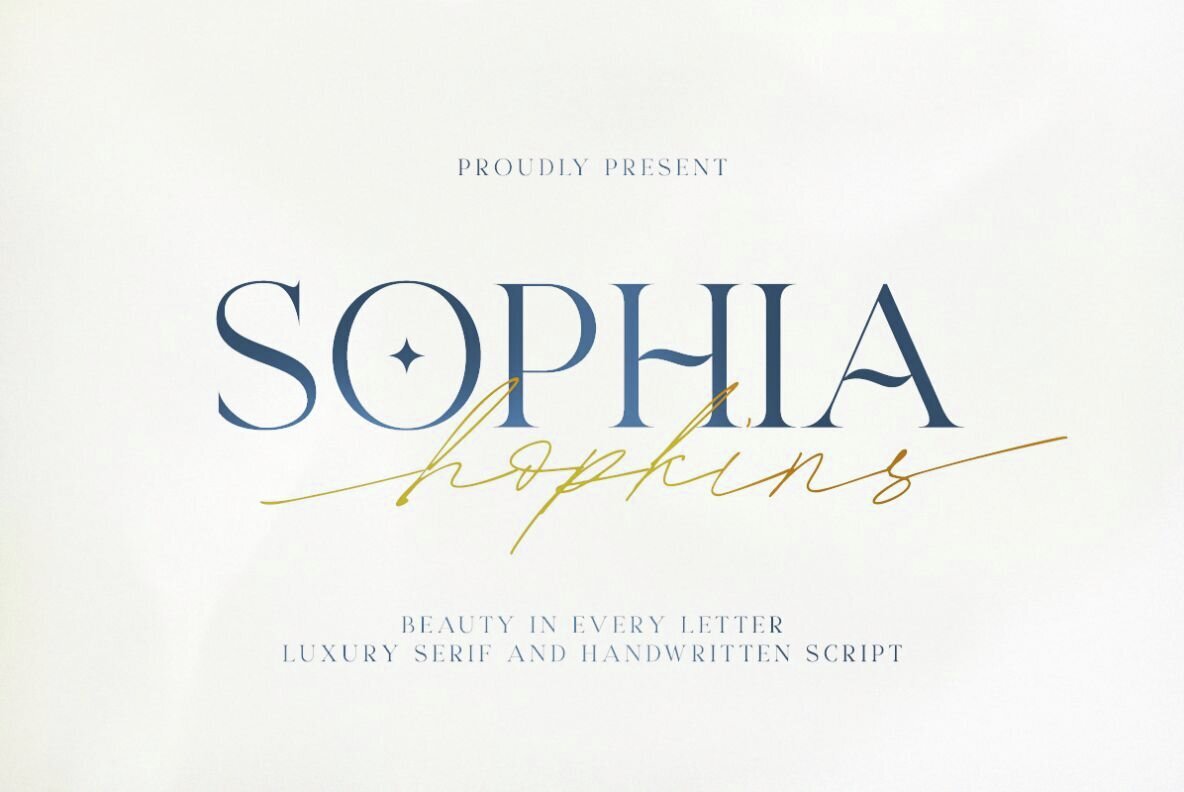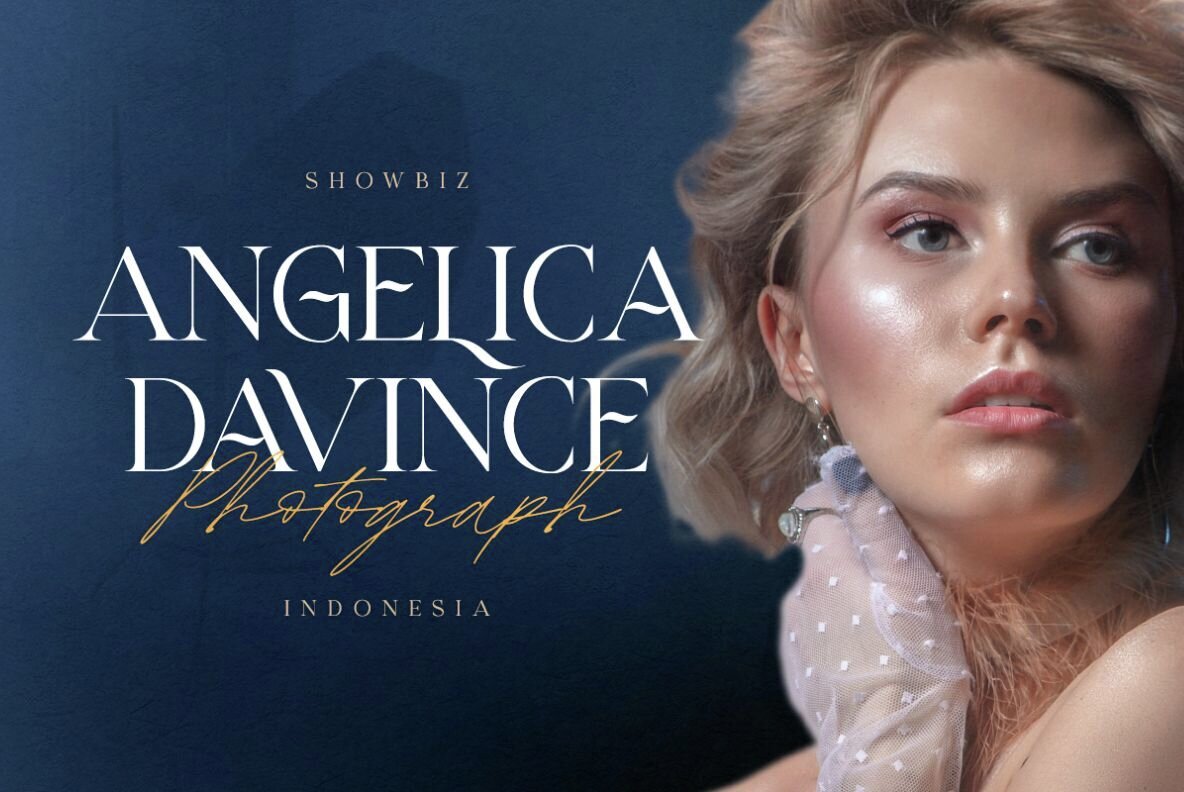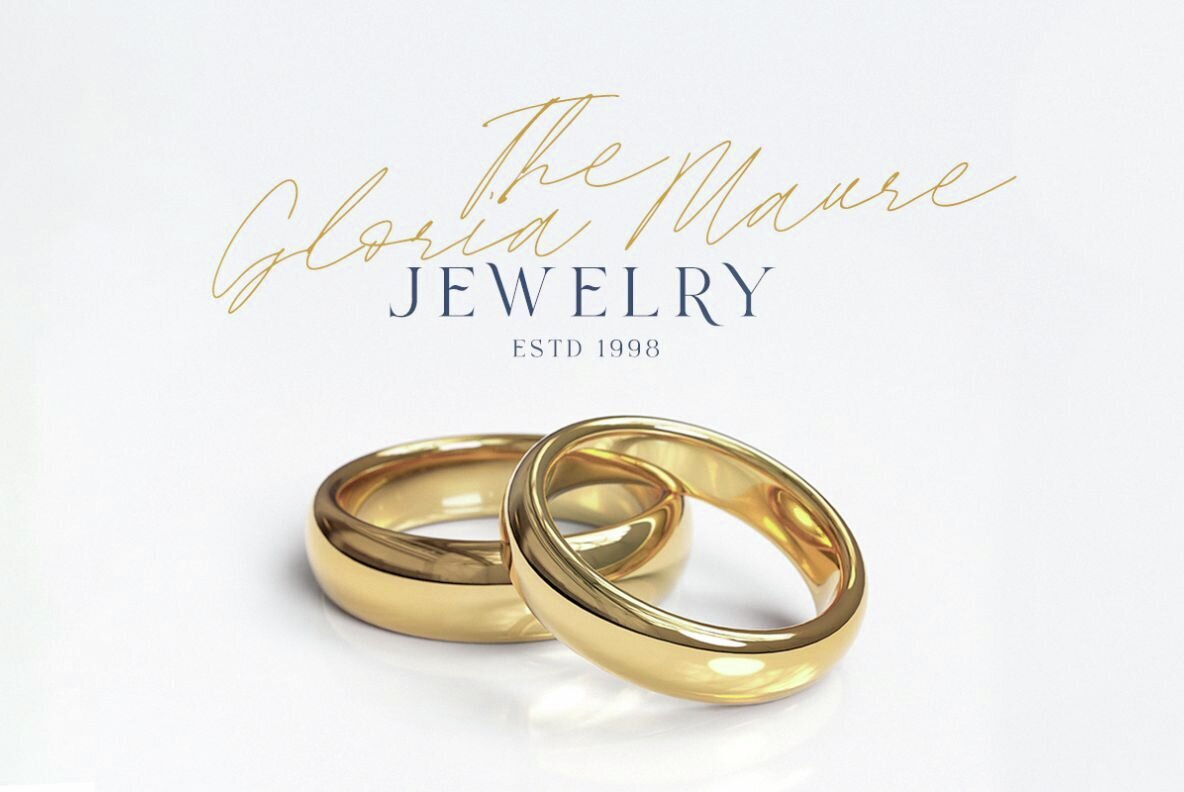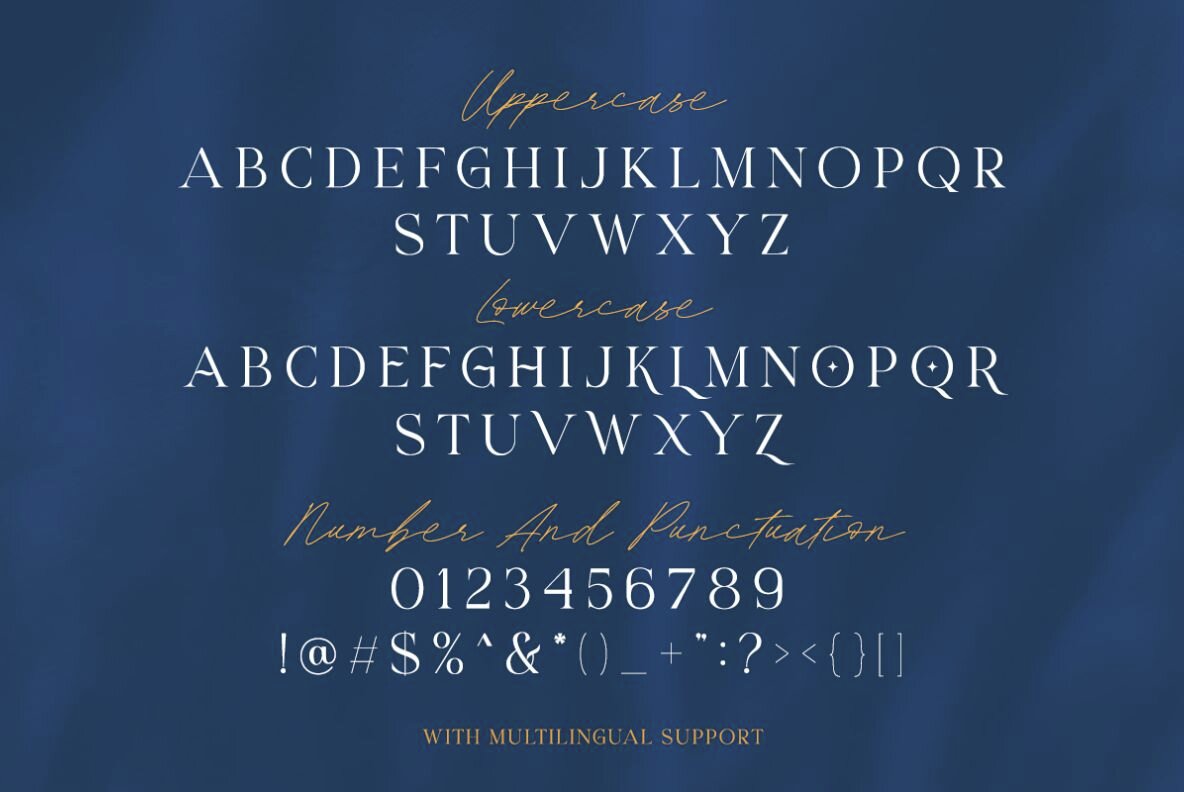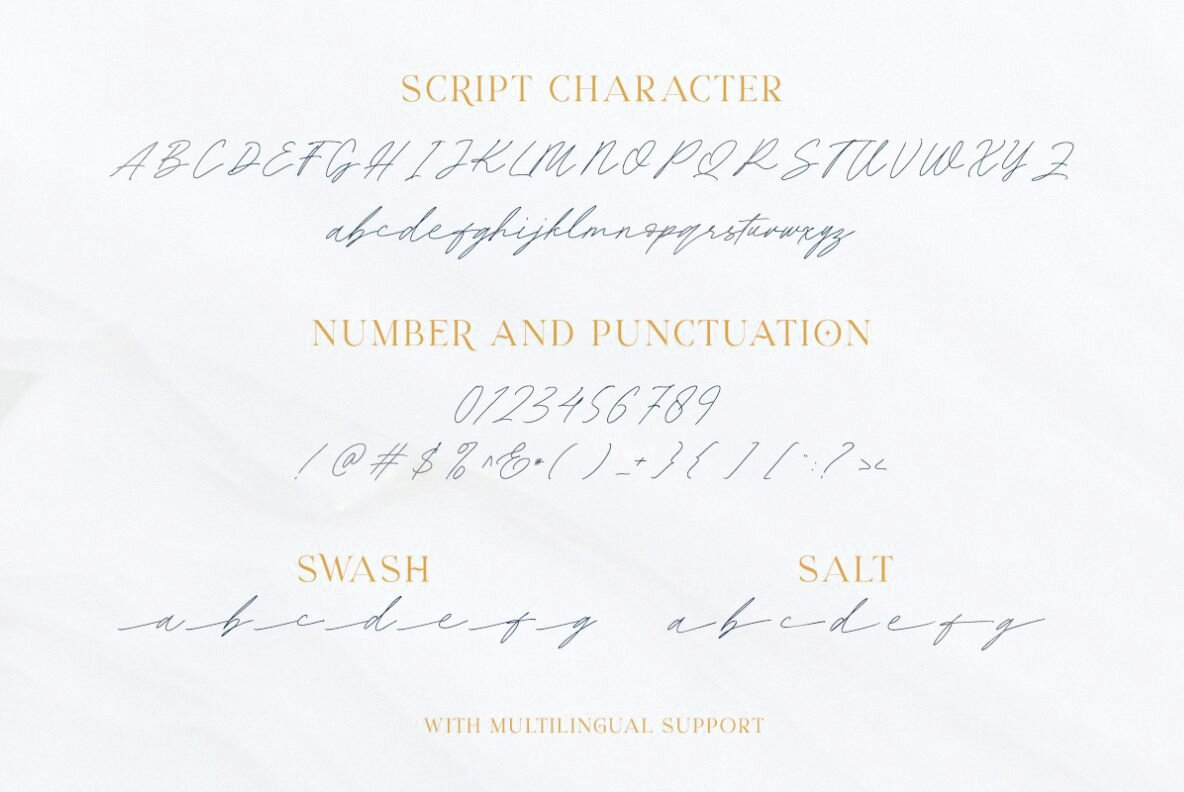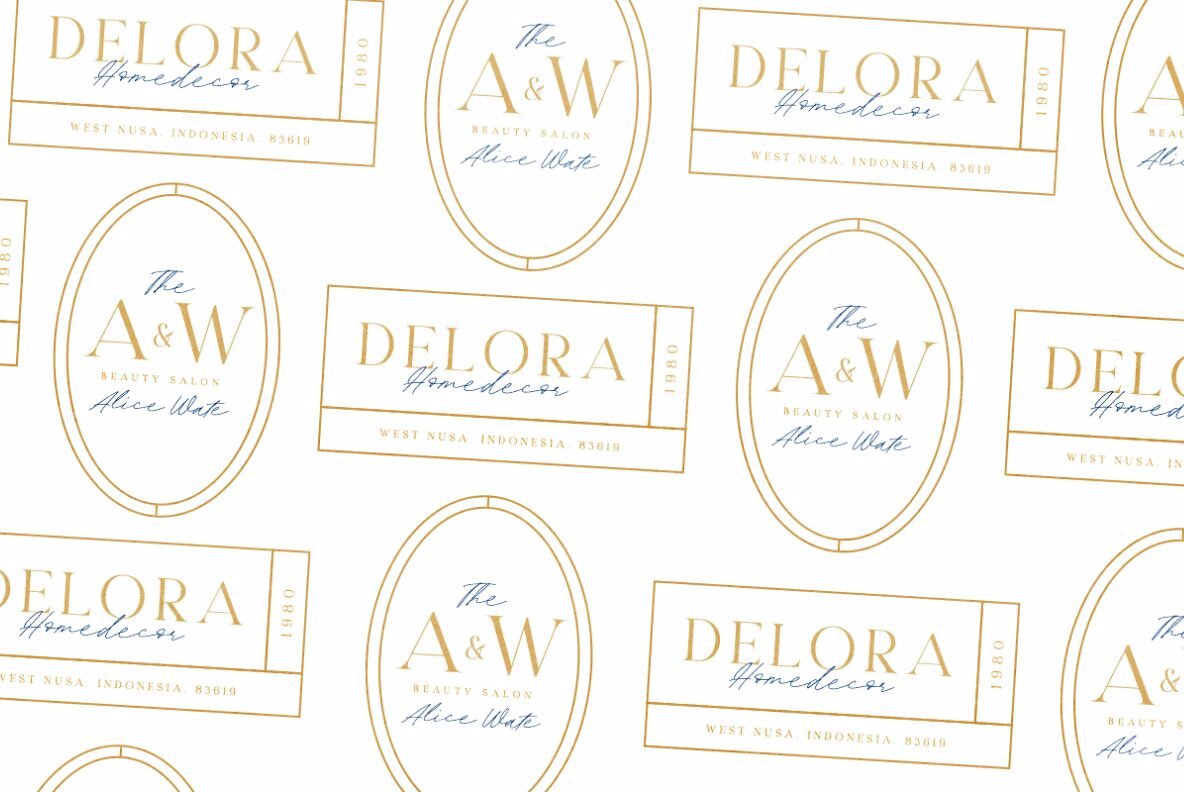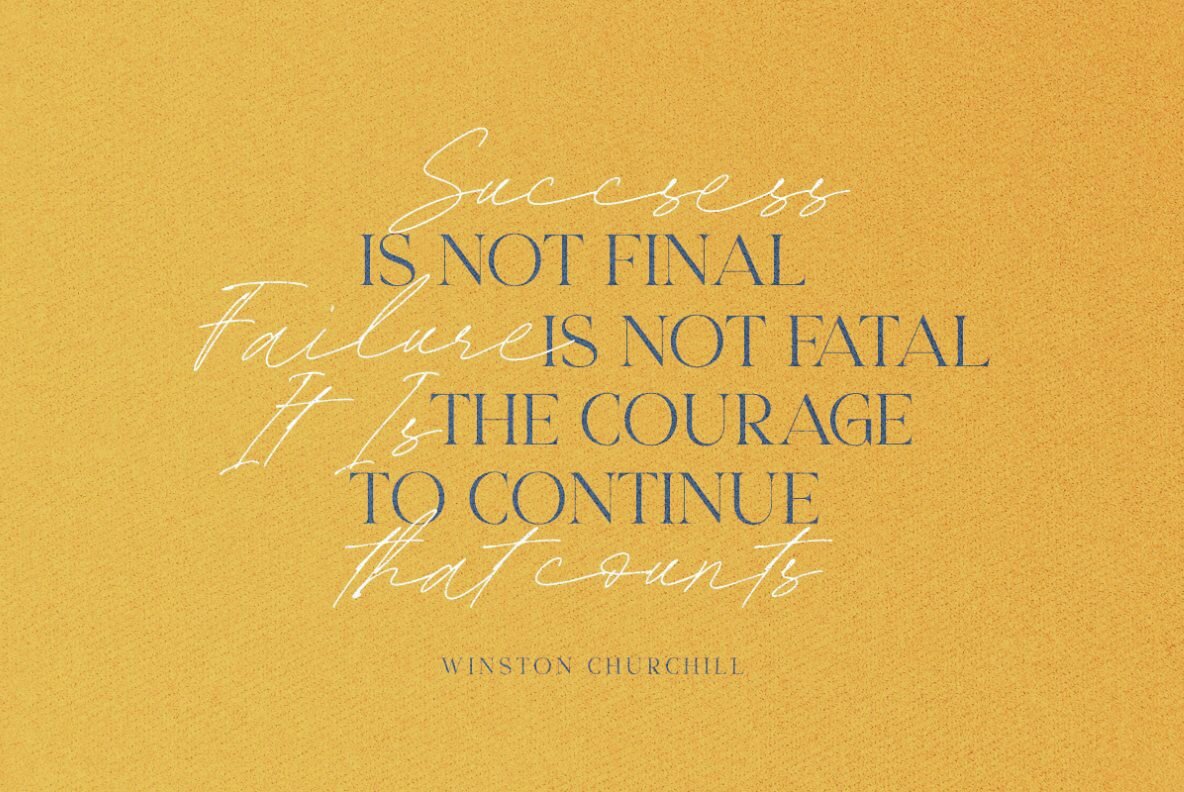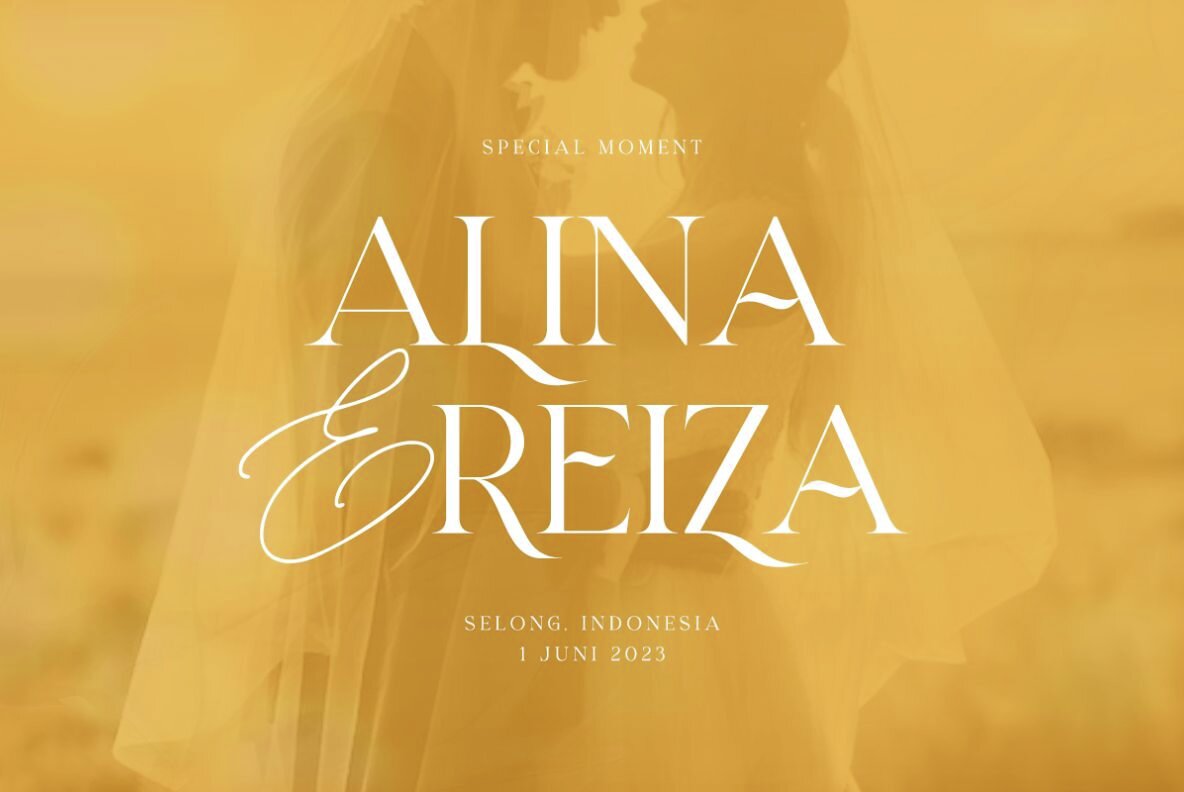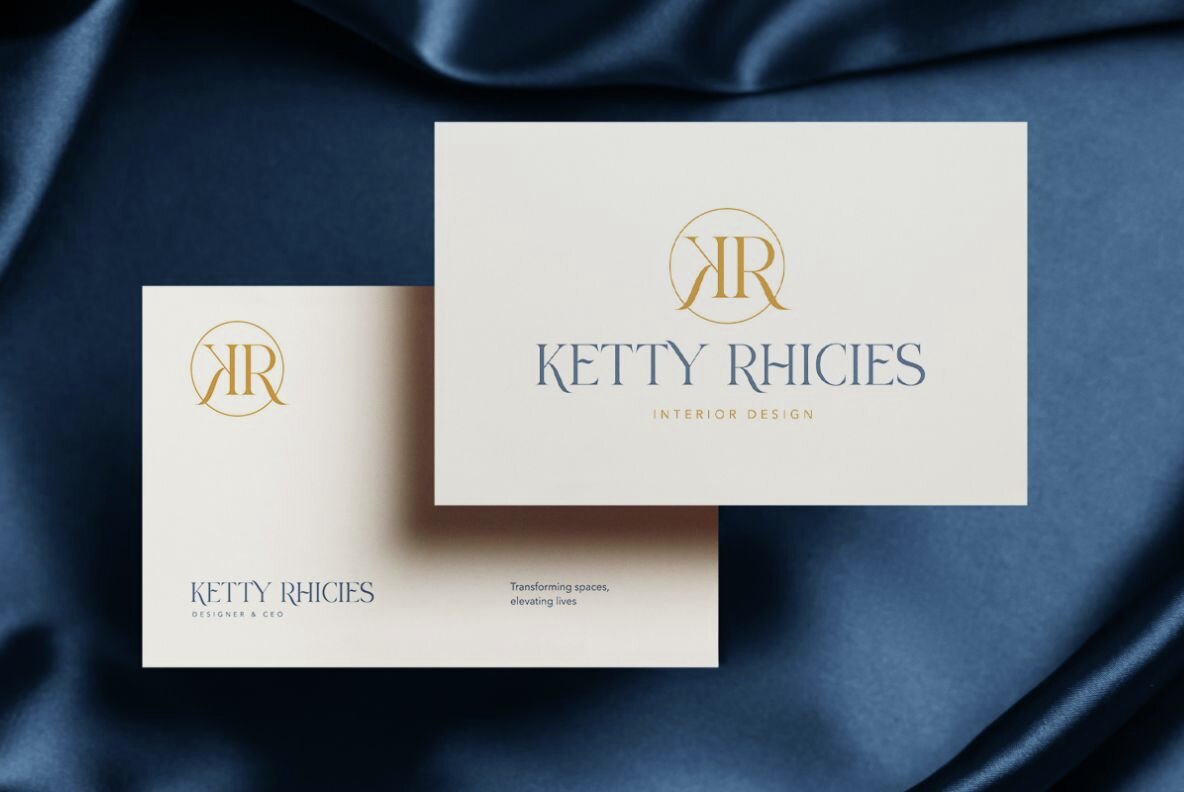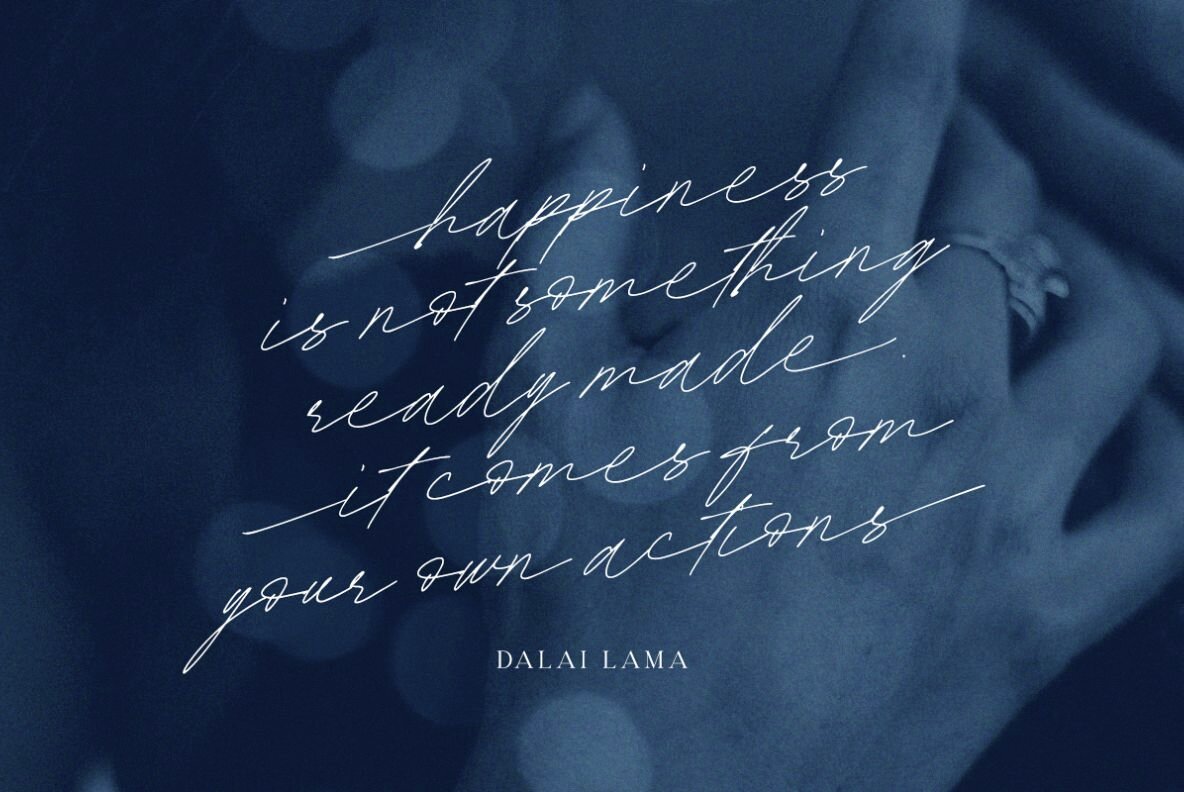
Sophia Hopkins Font
Sophia Hopkins Script
Sophia Hopkins Serif
Meet Sophia Hopkins, a versatile font pairing that combines an elegant serif with an expressive handwritten script. Perfect for applications ranging from branding and logo design to wedding invitations and quotes, this duo brings a harmonious blend of style and sophistication to any project. The serif includes distinctive lowercase letters that pair exquisitely with their uppercase counterparts, adding a unique flair to your typography.Sophia Hopkins: A Stylistic Serif and Script Duo